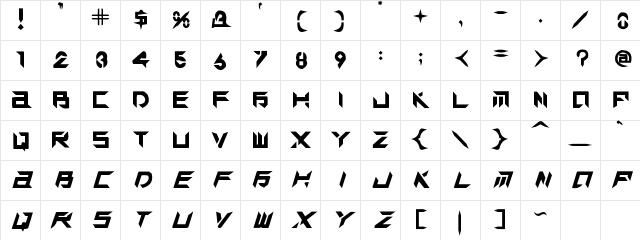
TEK HED AGGRESIVE Regular Free Font
TEK HED AGGRESIVE Regular
Designer: Bolt Cutter Design
Design Context for TEK HED AGGRESIVE
TEK HED AGGRESIVE is a composed and adaptable typeface that performs quietly and consistently across a wide range of design contexts.
Pro Tip: Use TEK HED AGGRESIVE in both headline and body roles to test its range before committing to a single application.